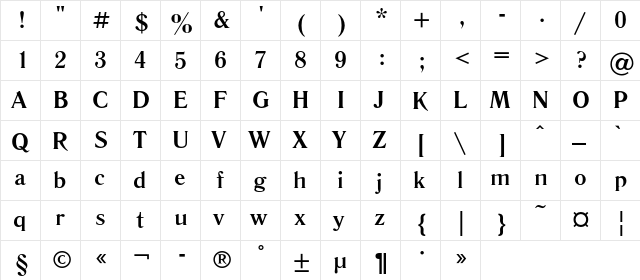
LiteraturnayaC Bold
Design Context for LiteraturnayaC Typeface
LiteraturnayaC takes a measured approach to typography — its balanced proportions and neutral character make it a reliable workhorse for both digital and print work. The heavy weight commands attention and anchors typographic hierarchies.